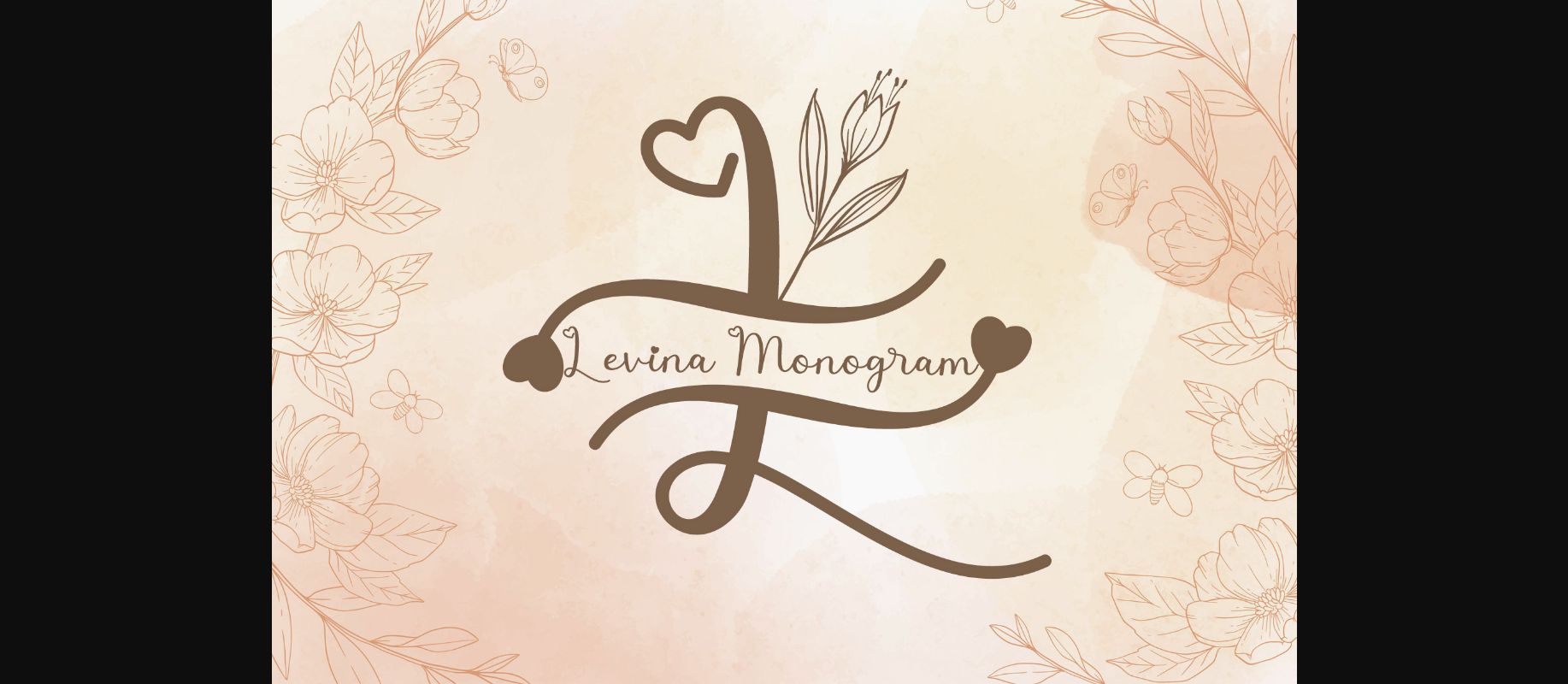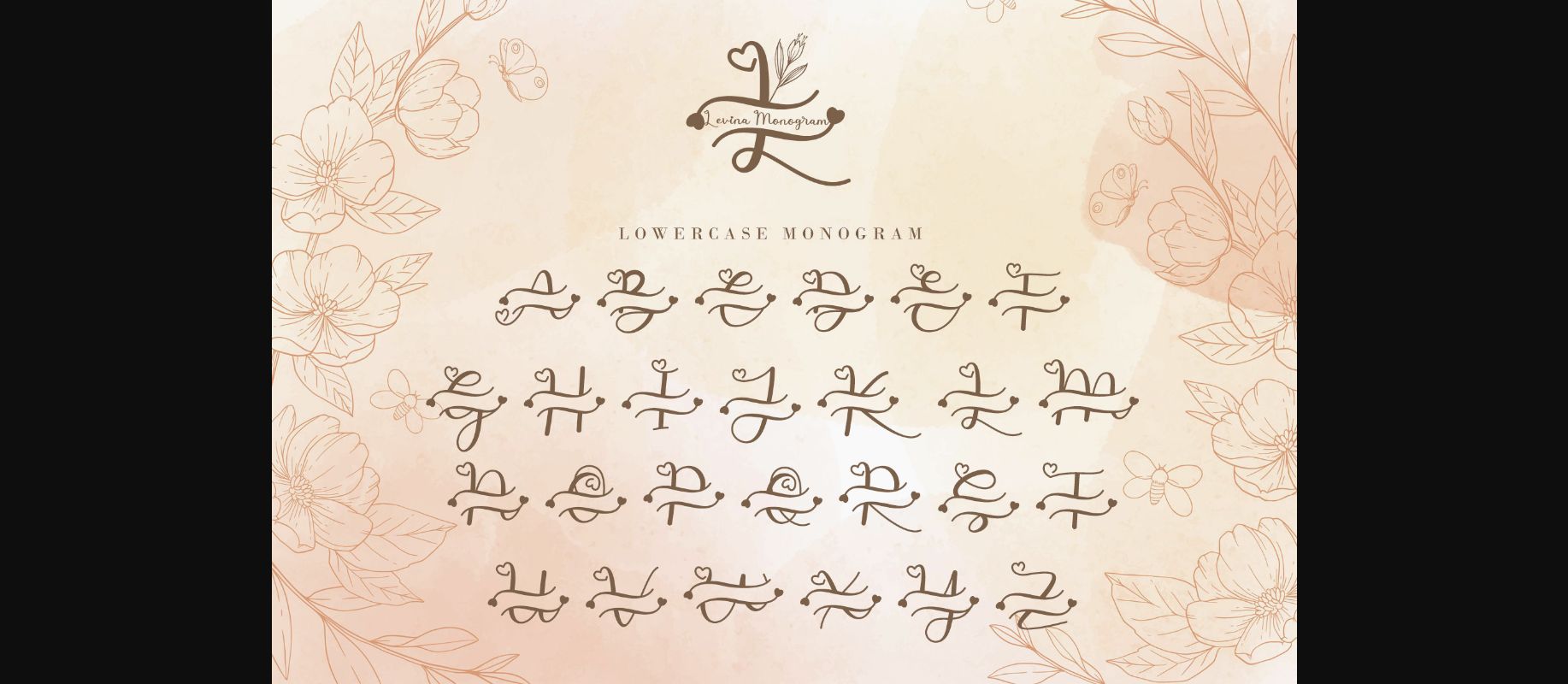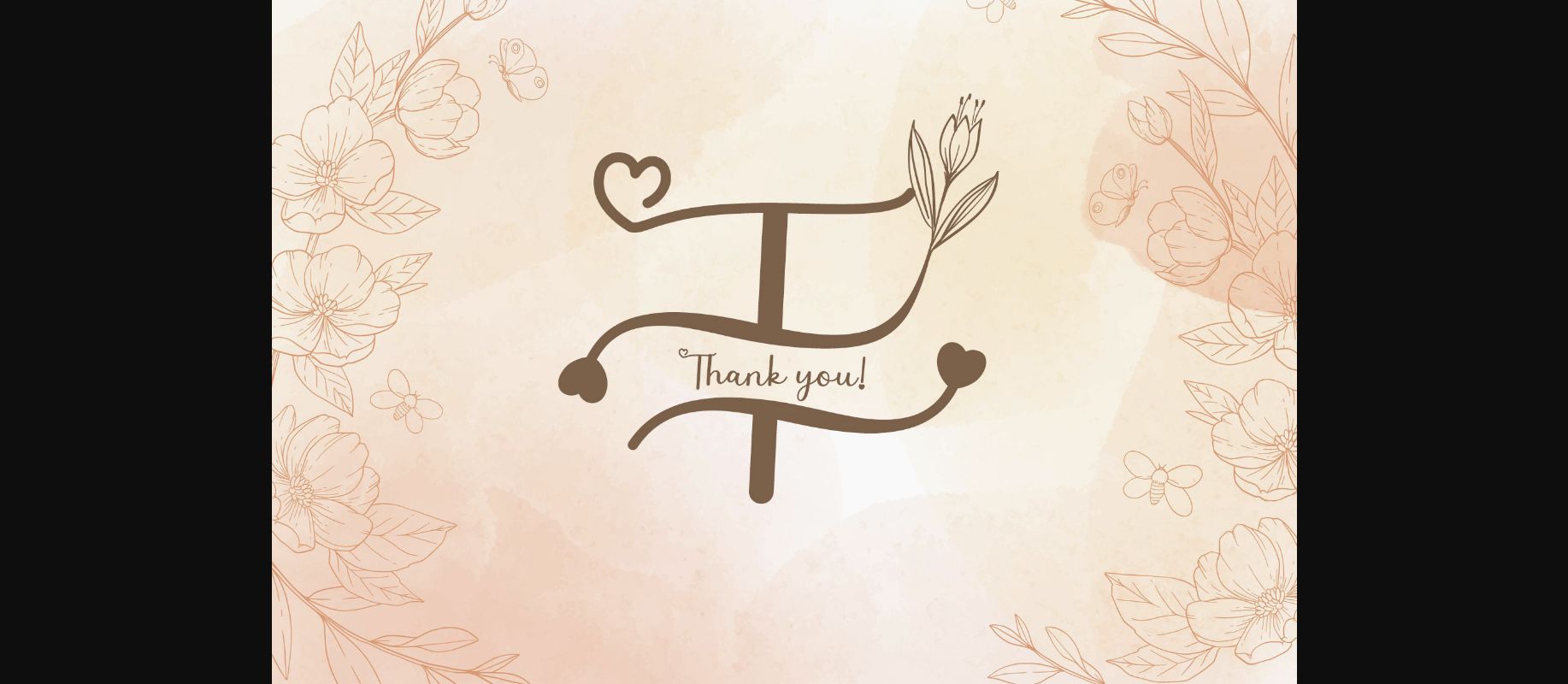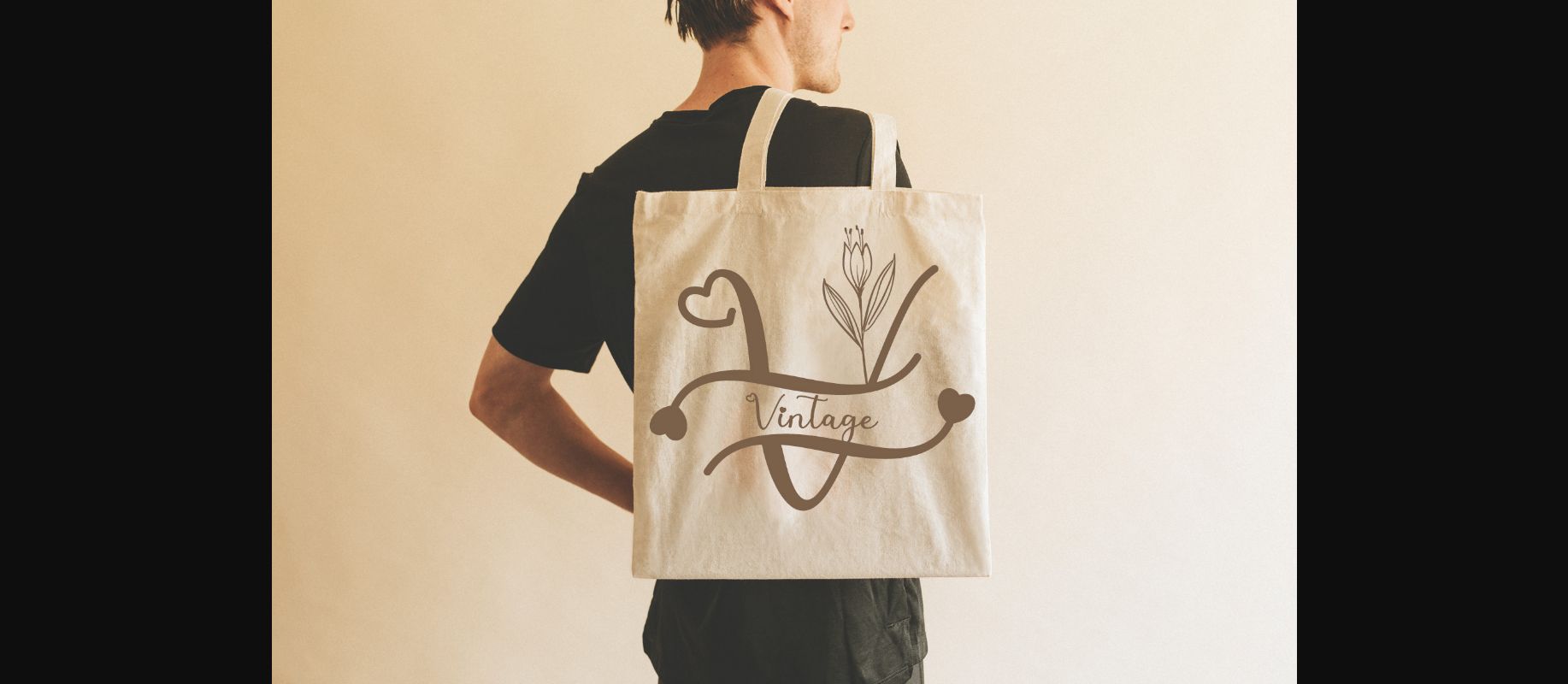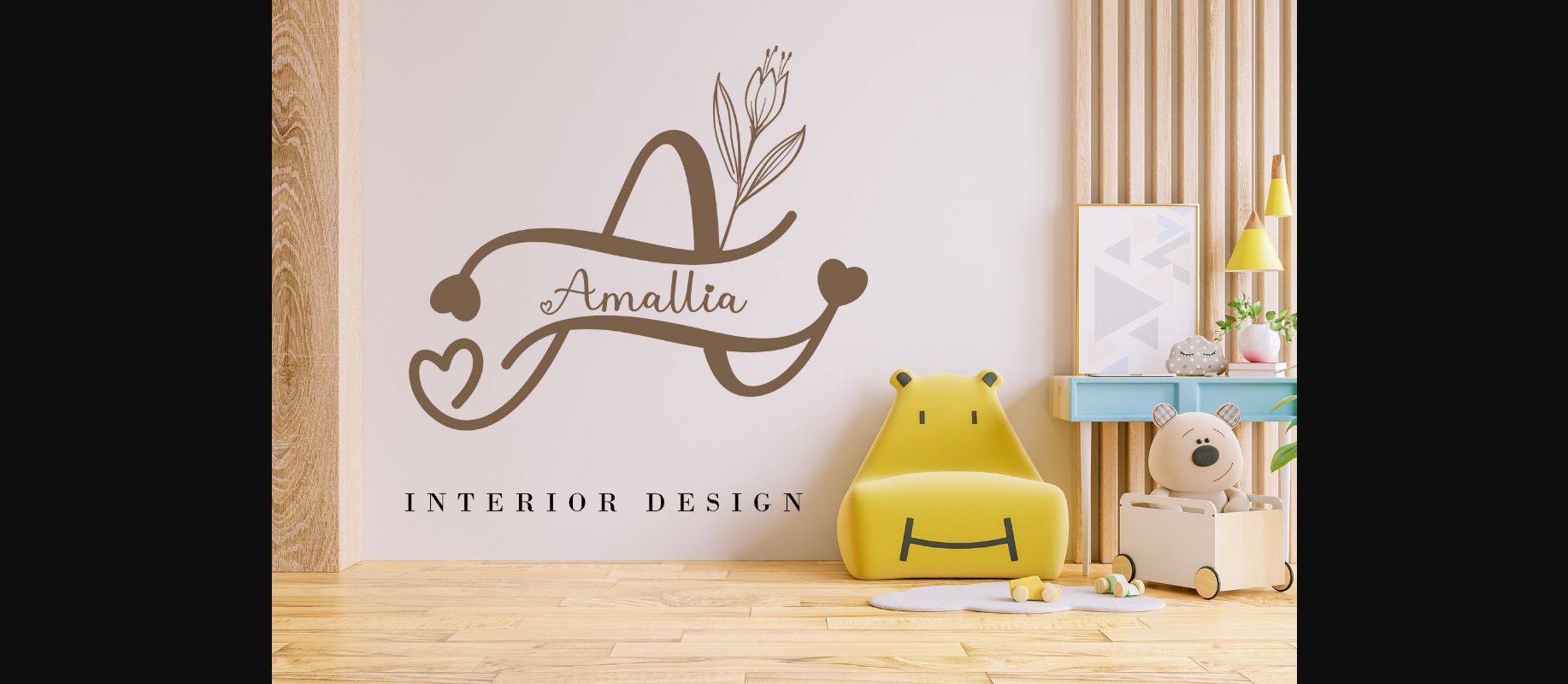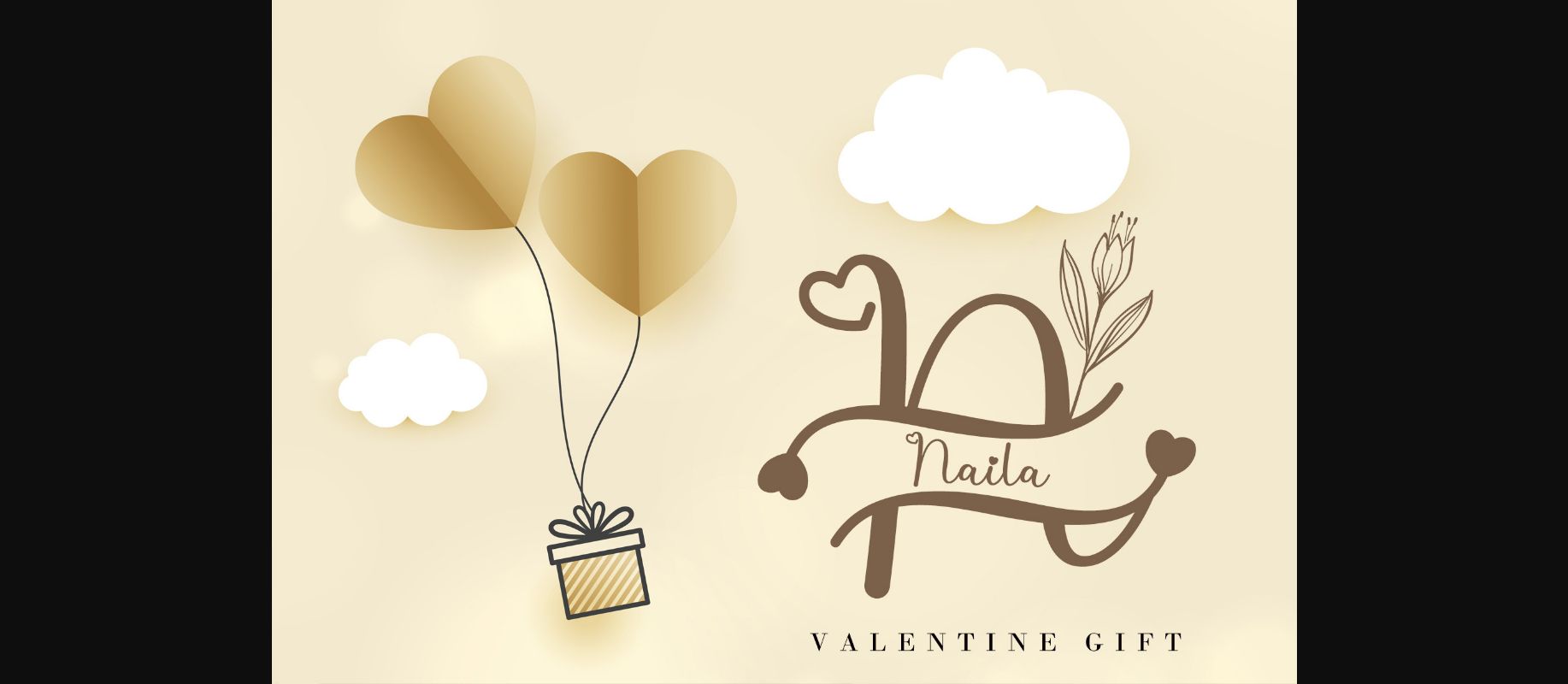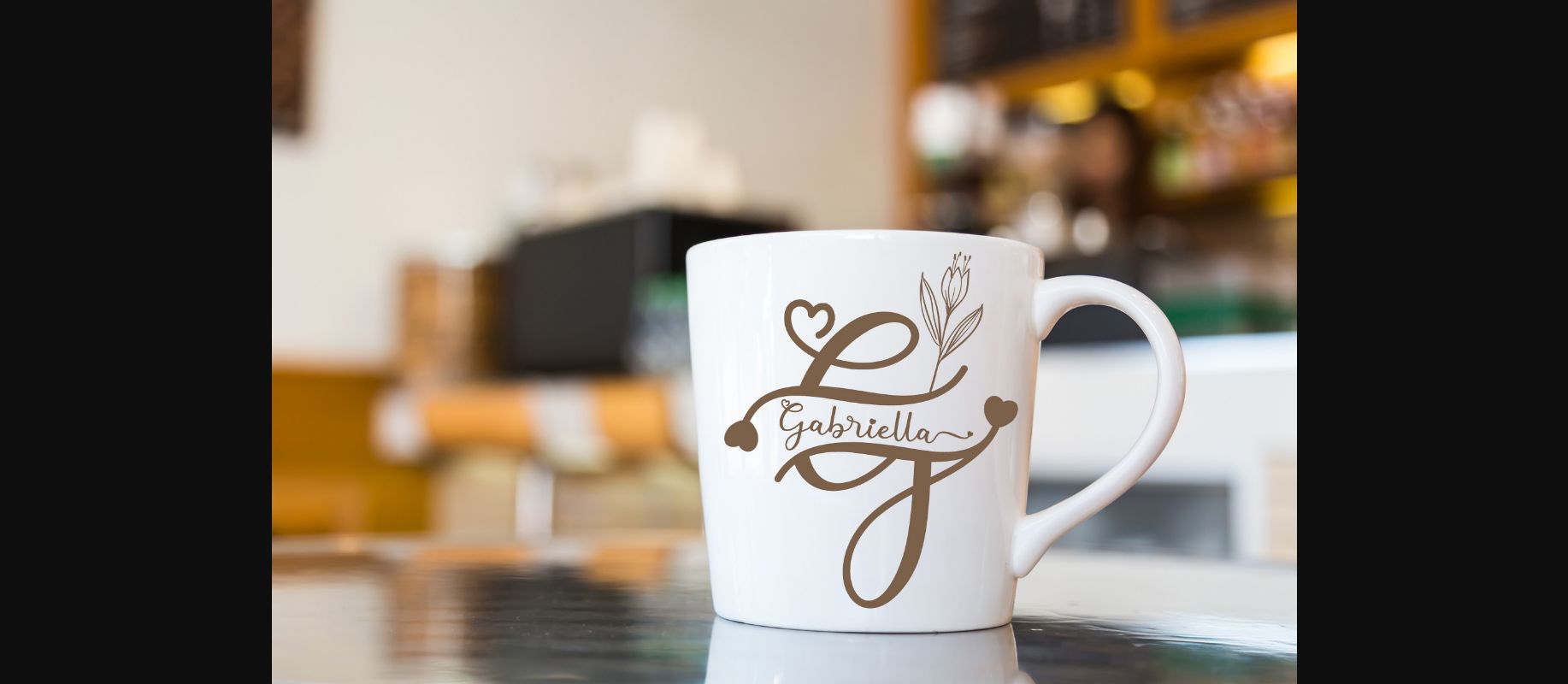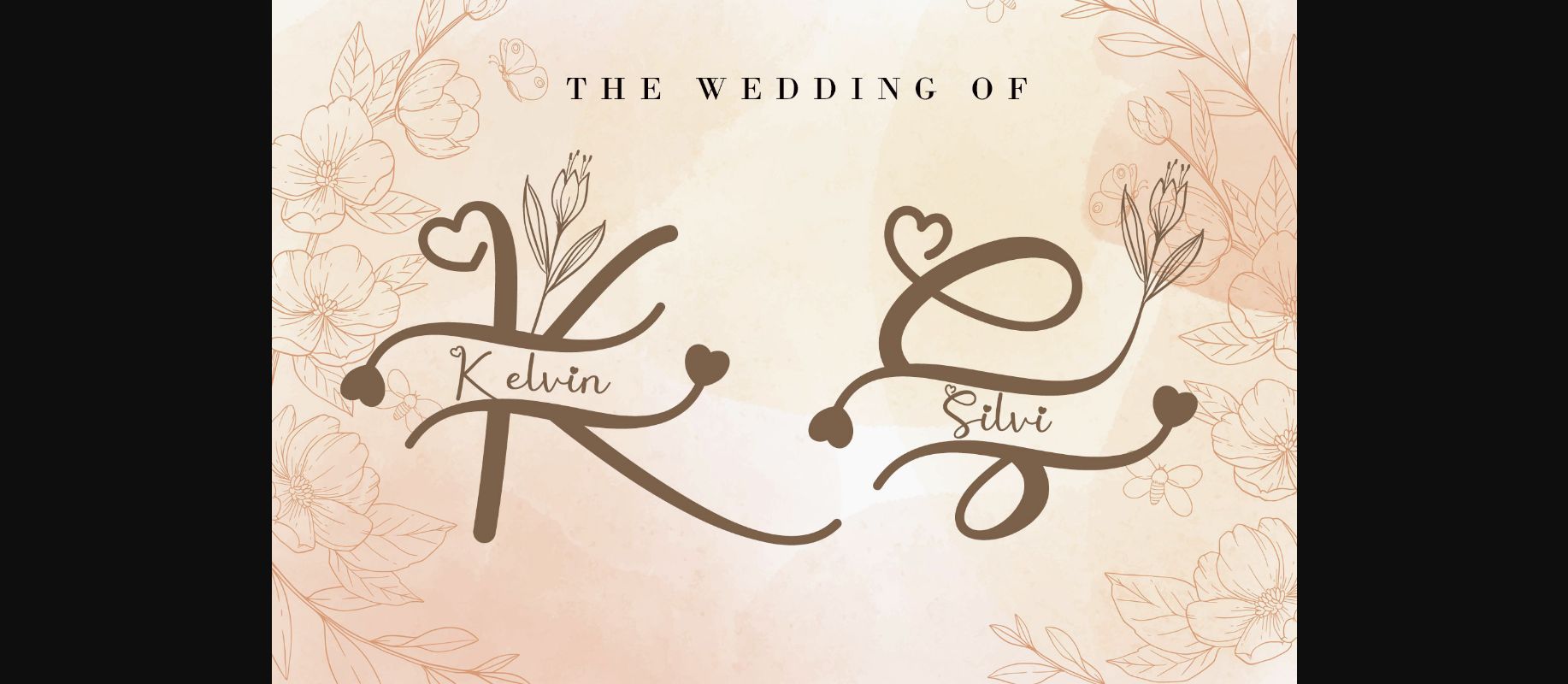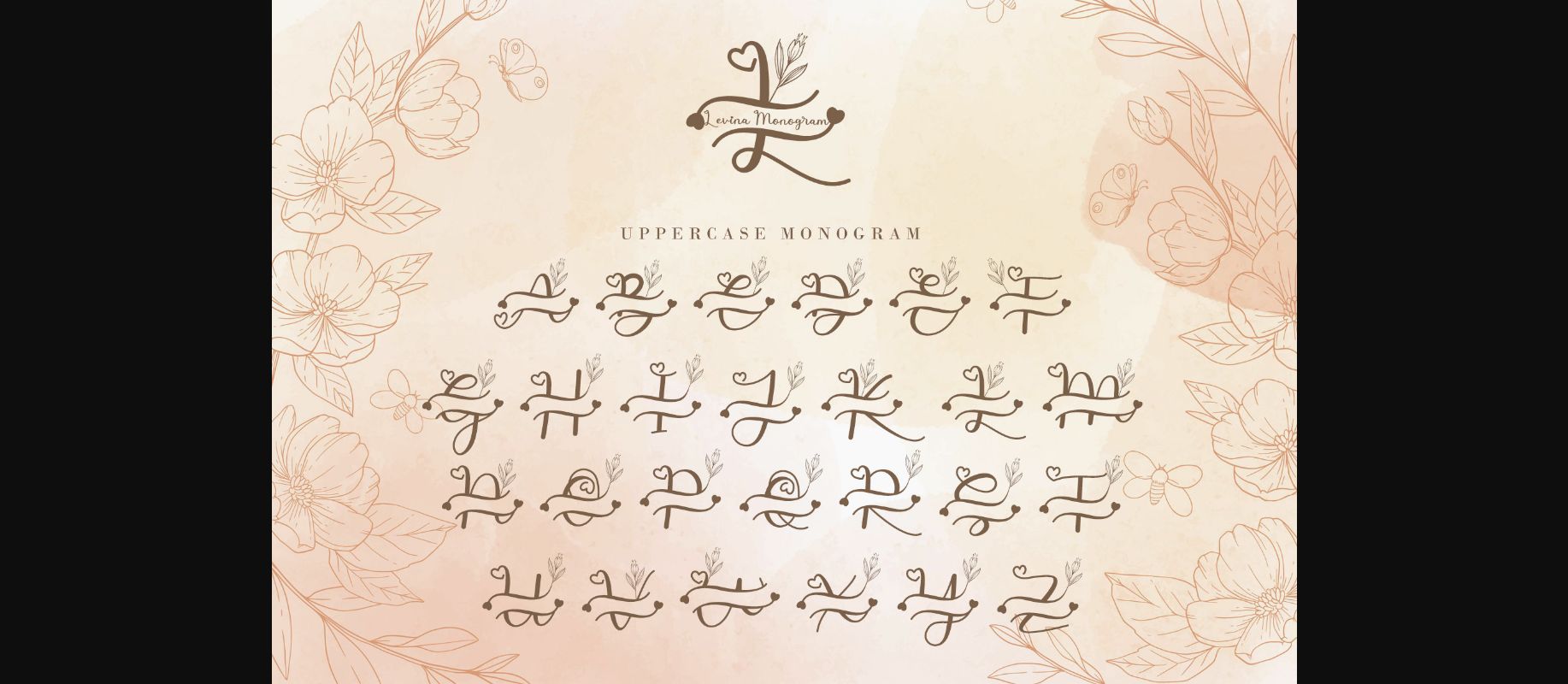
Levina Monogram Font Font
About Levina Monogram Font
Levina Monogram is a ravishing duo font (script and decorative). Add this romantic and lovely-looking font to each of your letters, wedding invitations, or favorite design ideas, and you will be astounded by the outcome. Levina Monogram is PUA encoded which means you can access all of the glyphs and swashes with ease!